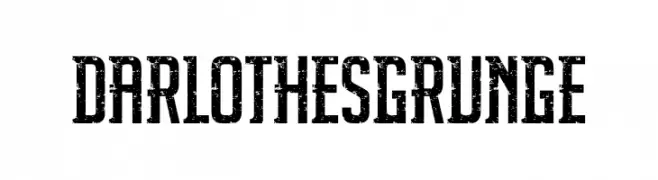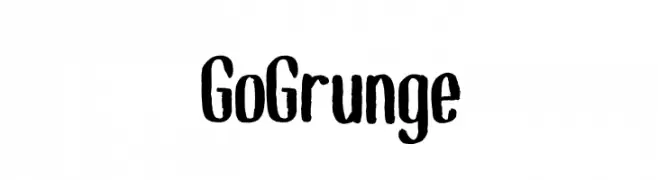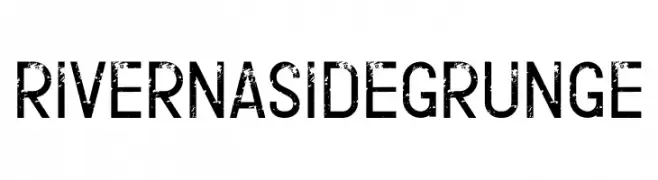
A bold, distressed font with a hand-drawn, grunge aesthetic.
A decorative font with elongated, angular letterforms and high contrast, inspired by Art Deco.
A bold, geometric font with a futuristic and edgy design.
A distressed, grungy font with a bold and rugged appearance.
A distressed, grungy font with uneven strokes and a hand-drawn appearance.
A distressed, grungy font with a hand-drawn, edgy style.
A distressed, grungy font with jagged edges and an artistic, chaotic style.
A bold, distressed font with a rugged, grunge style.
A bold, grungy font with a distressed, edgy design.
A bold, playful font with exaggerated, uneven strokes and a hand-drawn feel.
A bold, distressed font with a vintage, grunge aesthetic.
A bold, textured font with a distressed, grunge appearance.
A bold, distressed font with a grunge aesthetic and textured, worn appearance.
A distressed, grunge-style font with bold, irregular strokes and a textured appearance.
A bold, dynamic font with flowing, slanted letterforms.
A playful, hand-drawn font with a liquid-like, whimsical style.
A distressed, grunge-style font with jagged edges and a chaotic appearance.
A bold, brush-style font with dynamic, jagged strokes.